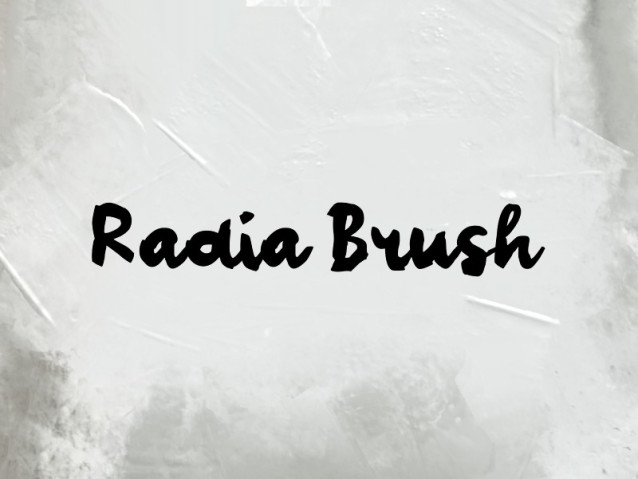
Radia Brush Font
Radia Brush Font is a simple and modern Brush font suitable for quotes, logos, headings, titles, and many more. Use it on any of your creative projects, and your designs will become outstanding!